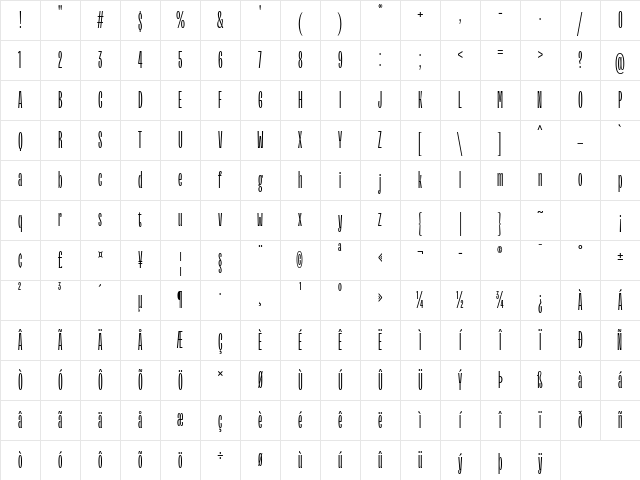
TT Trailers Trial Light Free Font
TT Trailers Trial Light
Designer: Designed by Ivan Gladkikh, Vika Usmanova, Yulia Gonina, Kirill Maslov, Antonina Samokhina, Lada Sobchenko. Technical designers Yuriy Nako, Victor Rubenko.
Design Context for TT Trailers Trial
TT Trailers Trial is a composed and adaptable typeface that performs quietly and consistently across a wide range of design contexts. Its slender proportions lend an understated elegance to any composition.